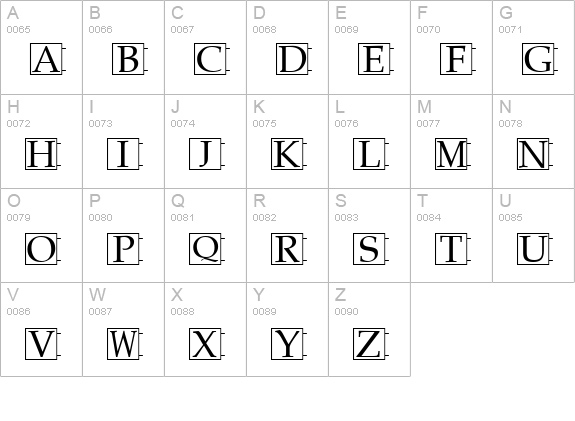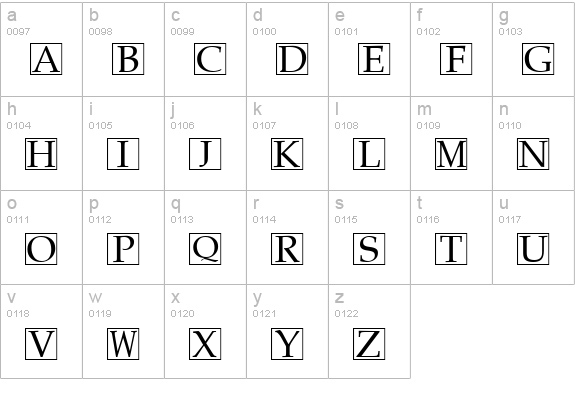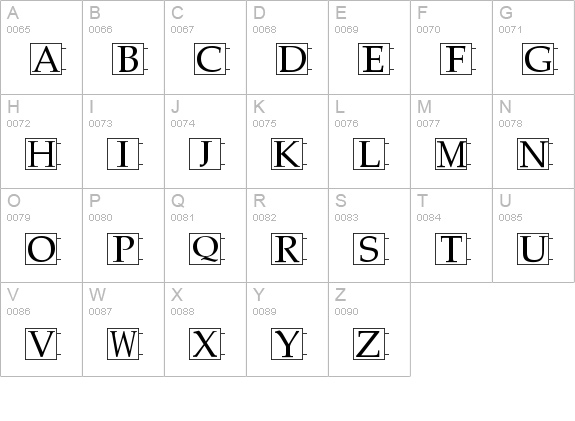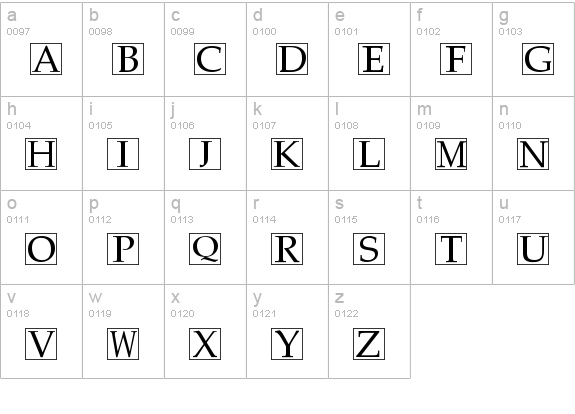
Annodomini Font Details
Annodomini is a versatile and elegant font that exudes a timeless charm. With its clean lines and classic appeal, Annodomini is perfect for a wide range of design projects, from invitations to posters to branding materials. This font features a balanced combination of modern and traditional elements, making it a great choice for both digital and print applications. What's even better is that Annodomini is available for free download at FontsMarket.com. This means you can easily add this beautiful font to your collection without any cost. Whether you are a designer looking to enhance your projects or someone who simply appreciates high-quality typography, Annodomini is sure to impress with its sophistication and style. Download Annodomini today and elevate your designs with this stunning and timeless font.